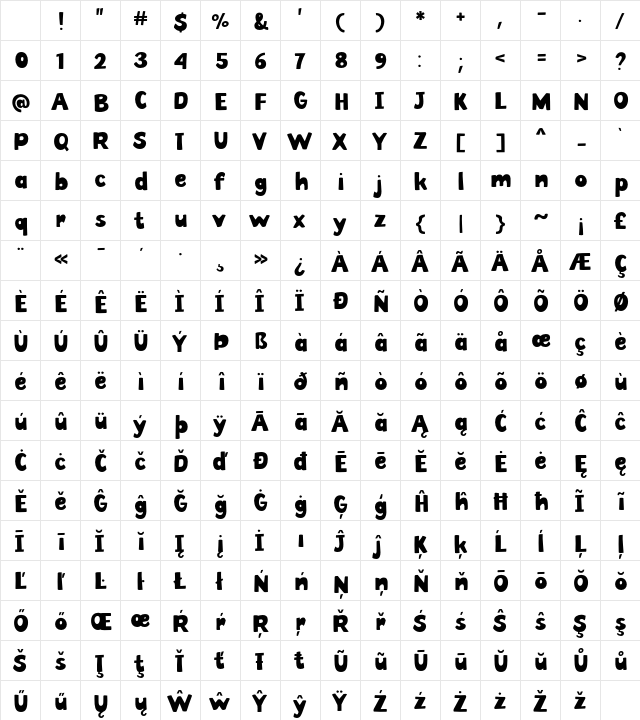
Complete Eat Me Alive Regular glyph index. Displaying only characters natively supported by Eat Me Alive Regular font.
Eat Me Alive is a composed and adaptable typeface that performs quietly and consistently across a wide range of design contexts.